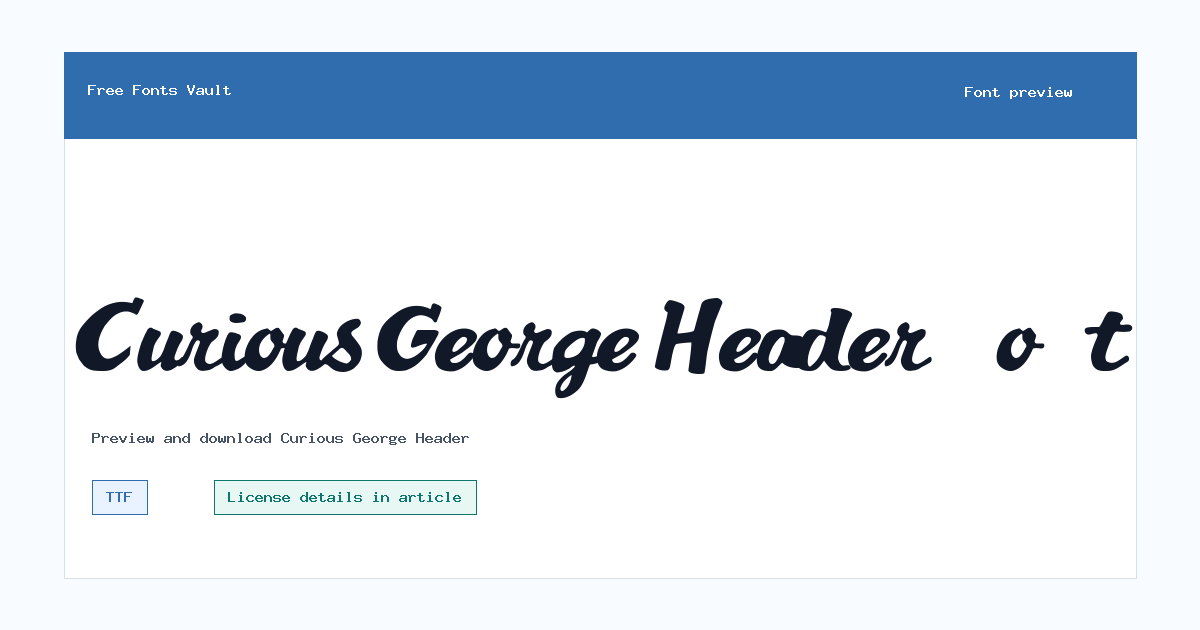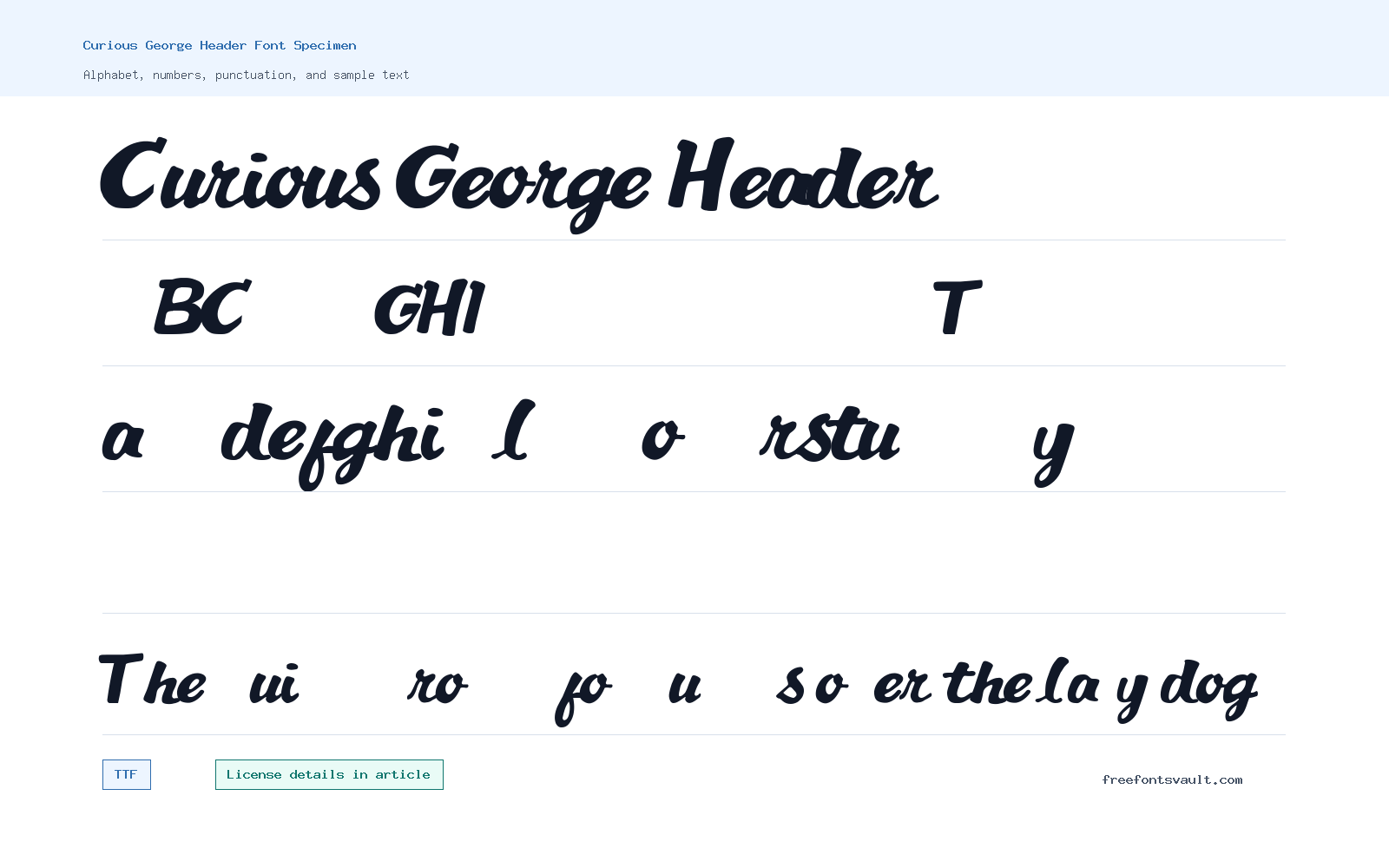
Curious George Header
Curious George Header is a playful display font for short, attention-grabbing text. It is best approached as a headline or title face rather than a long-reading font.
About Curious George Header Font
This font is most useful when you need a lighthearted title, a themed poster heading, a classroom label, a party sign, a children’s activity sheet, or a short web graphic. Test it in the preview box with the exact words you plan to use, especially if your design needs punctuation, numbers, or mixed upper and lower case. Decorative fonts can lose clarity when used too small, so try it at the final size before building a full layout around it.
• Display-focused style suited to short headers, labels, and playful title text.
• Posters, banners, invitations, classroom materials, and themed printable headings.
• Short website graphics, social images, thumbnails, stickers, and decorative labels.
Use Curious George Header for short text where personality matters more than dense reading. Pair it with a plain sans serif or simple serif for body copy, instructions, captions, and legal text. Avoid setting long paragraphs in this font, and check spacing carefully in all-caps words, names, and headings with narrow letters. If the project will be public, review both the font license and any character or brand references in the design.
Is Curious George Header good for body text?
No. It is better for short headers and display text. For paragraphs, pair it with a simpler, more readable font.
Is this an official Curious George font?